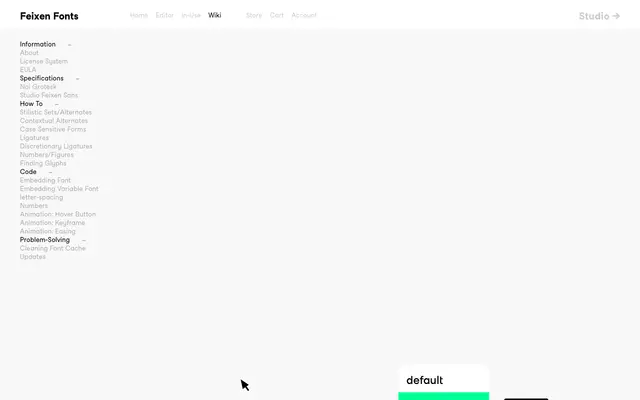
Noi Grotesk
A Swiss-inspired neo-grotesque with an unusually extensive set of OpenType alternates and a variable axis spanning eight weights from Thin to Black.
Noi Grotesk draws on Swiss typographic tradition but tempers its precision with a more approachable character, offering thirteen stylistic sets that cover single and double storey letterforms, spaghetti alternates and headline-specific letterforms among others. The variable font spans weight 100 to 900 with a continuous italic axis, giving designers fine control over interpolated values between named weights. Broad Latin and Cyrillic coverage across dozens of languages makes it viable for international publishing and branding work.
Described explicitly as a neo-grotesk family inspired by Swiss typographic traditions, placing it firmly in the neo-grotesque subcategory with a contemporary and friendly character.